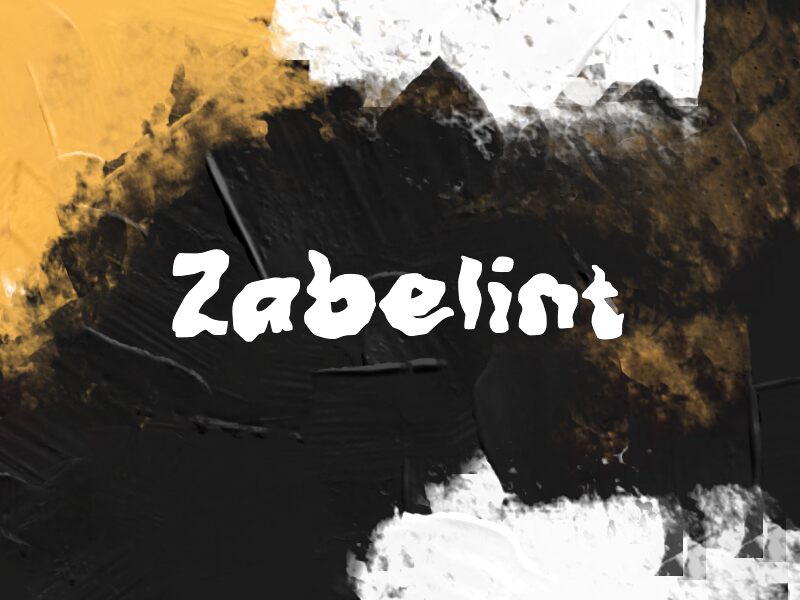
Zabelint
Zabelint font by wepfont.com is a free distorted display typeface that looks like it’s been scratched out with a thick, inky marker. The letters slouch, swell, and melt into each other, giving every word a smeared, unsteady feel, as if it’s still drying on the page. It carries a raw, underground energy—messy on purpose, but still legible enough to shout a message from across the room.
Using Zabelint, you can push atmosphere front and center on horror posters, metal or punk band logos, Halloween flyers, indie game titles, zines, or underground party graphics. The heavy blobs and warped edges grab attention instantly, so this free font shines at large sizes with plenty of negative space around it. For supporting text, pair it with a clean, narrow sans serif to keep the chaos focused where it matters most: the headline.